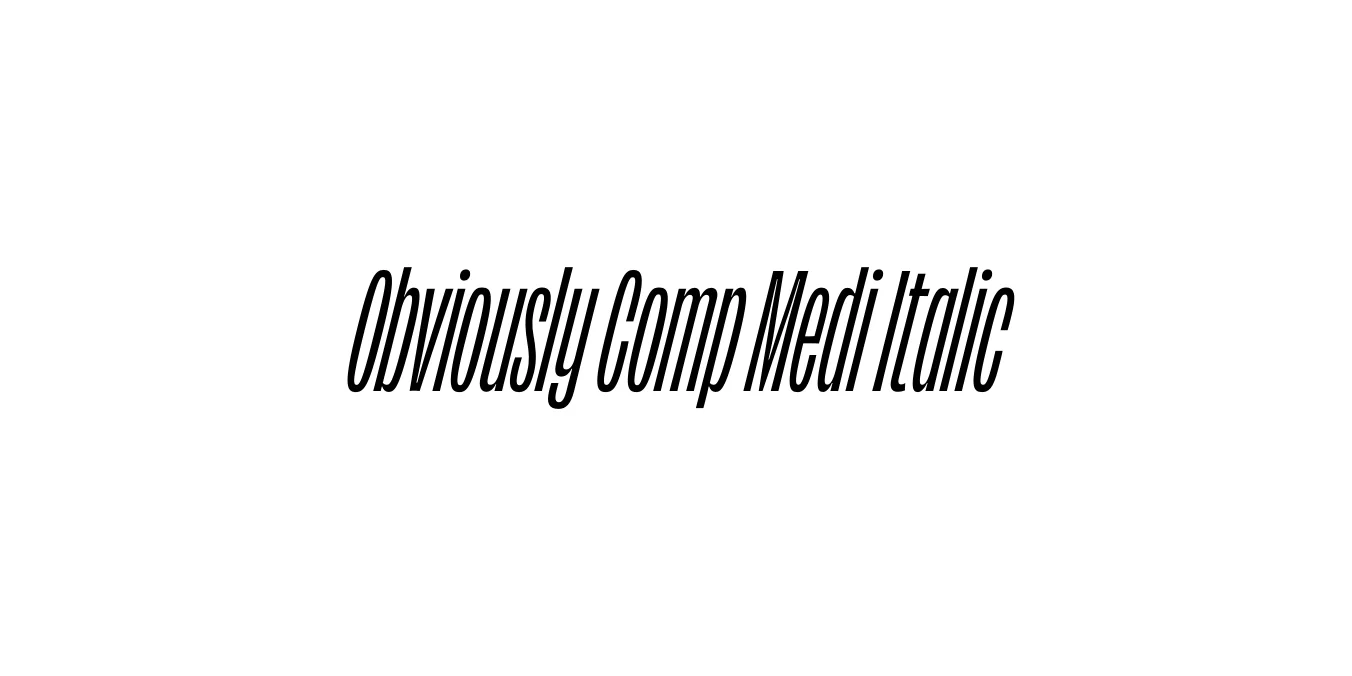
Obviously Comp Medi Italic
Designed by James Edmondson
Obviously Comp Medi Italic is a core component of the expansive Obviously family, designed by James Edmondson and released through the Ohno Type Co. This typeface takes inspiration from the grit and character of mid-20th-century American signage, specifically the condensed lettering found on grocery store windows and industrial placards. The 'Compressed' sub-family is engineered for maximum vertical impact, allowing designers to pack large amounts of information into narrow horizontal spaces without losing legibility or personality.
The Medium Italic weight provides a balanced stroke width that feels sturdy yet agile, while the slant adds a necessary sense of momentum and urgency to display copy. Its construction features flat-sided ovals and rigid structures that are softened by quirky, unexpected details characteristic of Ohno's design philosophy. Obviously Comp Medi Italic is an essential tool for modern editorial design, branding, and advertising where a bold, assertive voice is required.
Obviously Comp Medi Italic Best Uses
Perfect for high-impact magazine headlines and narrow column layouts.
Ideal for creating aggressive and energetic team identities or apparel graphics.
Works exceptionally well for event posters where space is limited but visibility is key.
Grabs attention instantly in digital banners and social media marketing materials.